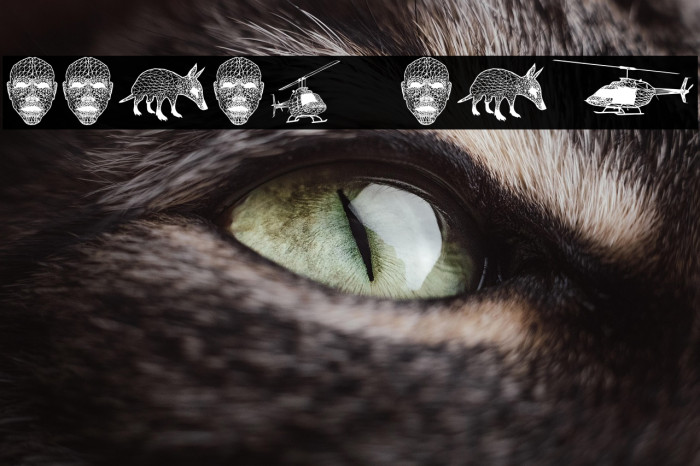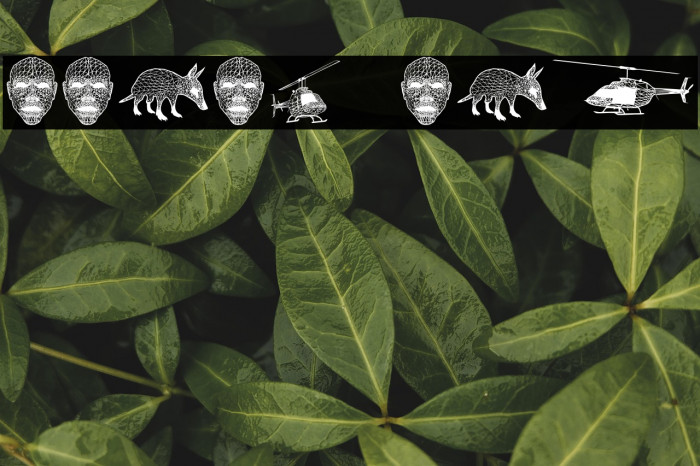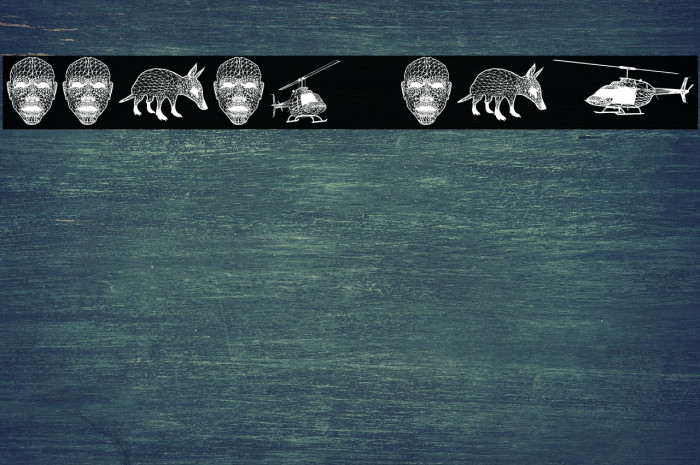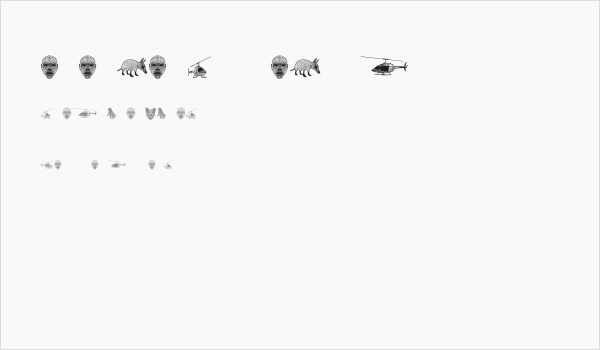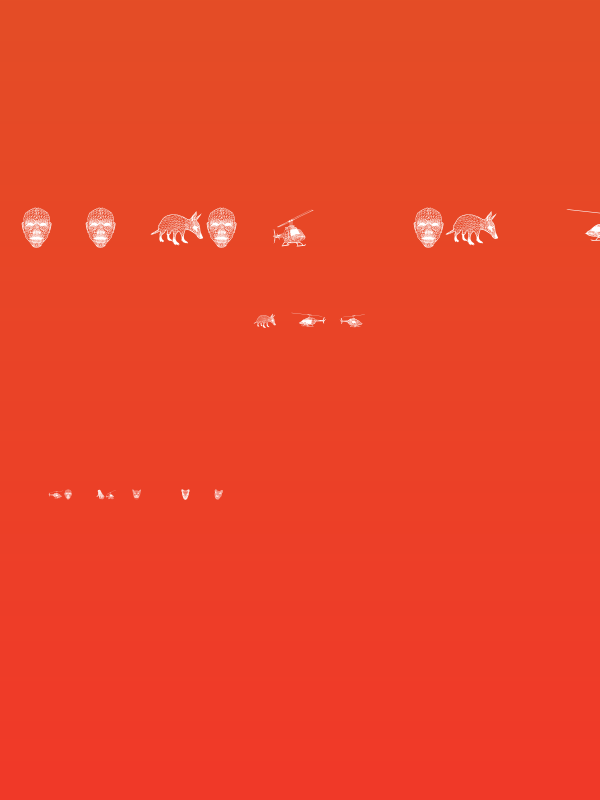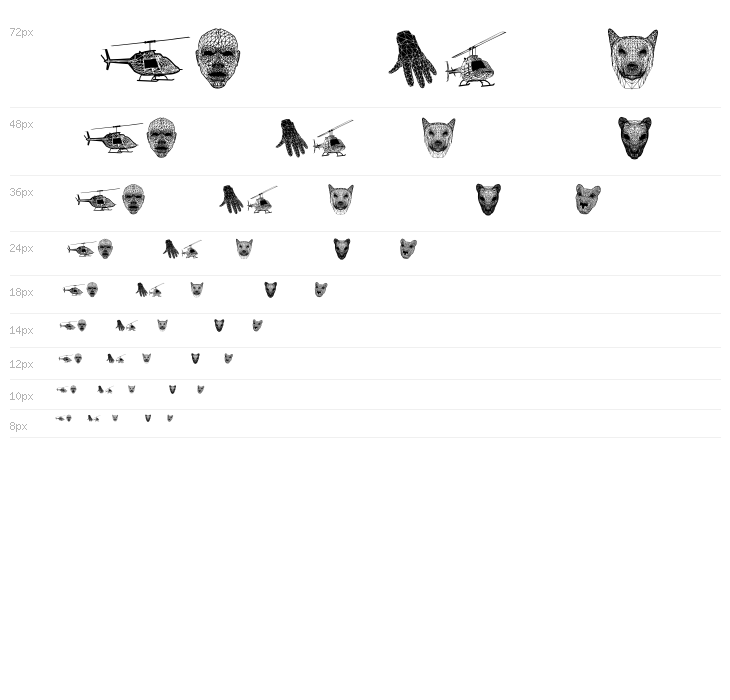
Emergency Regular Font
Emergency Regular Description
A decorative dingbat font featuring detailed, hand-drawn illustrations of helicopters, animal heads, an armadillo, and a gloved hand. Each glyph is a unique, high-contrast black and white sketch, giving the font a whimsical and illustrative appearance.
| Overall Style | Decorative, Illustrative, Whimsical |
| Use Case | Icons, Decorative elements, Themed graphics |
| Proposed Projects | ChildrenΓ’β¬β’s books, posters, educational materials, creative branding, and art projects. |